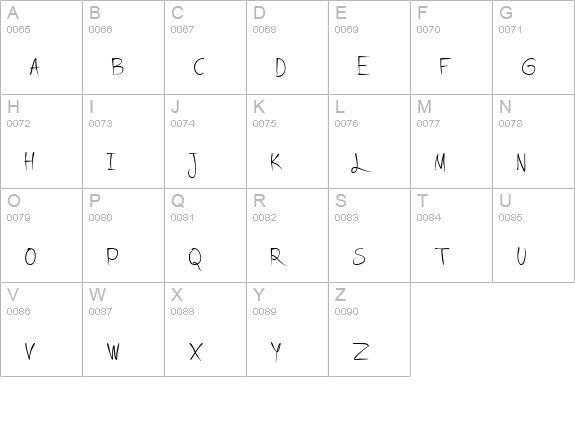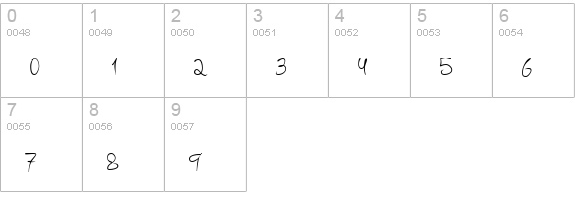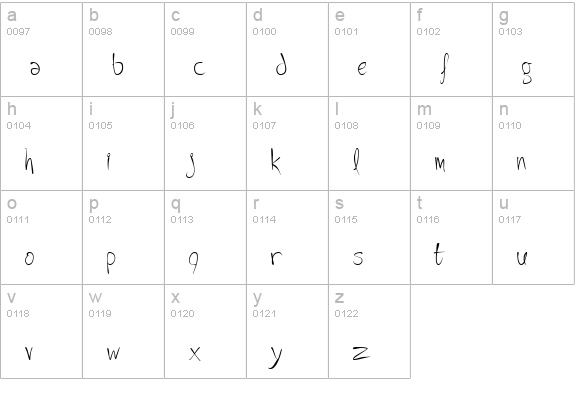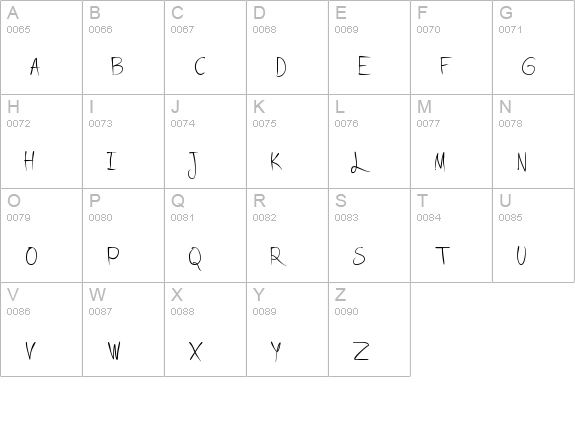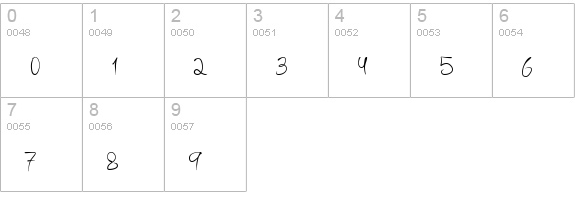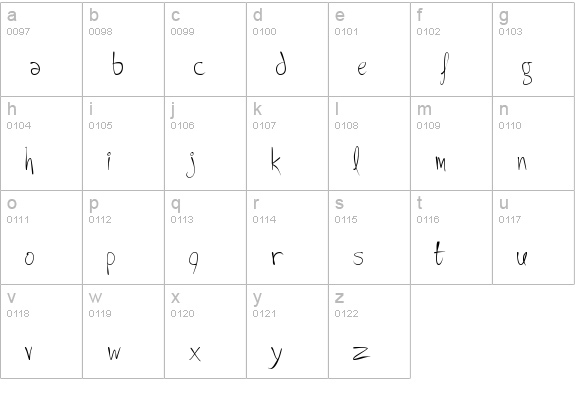
Lovitz Font Details
Lovitz font is a stunning and elegant typeface that exudes sophistication and charm. With its sleek lines and delicate curves, this font is perfect for adding a touch of luxury to any design project. Whether you're working on invitations, branding materials, or social media graphics, Lovitz font will elevate your work to the next level. The best part? Lovitz font is completely free to download at FontsMarket.com. Don't miss out on this opportunity to enhance your designs with this exquisite font that is sure to impress. Download Lovitz font today and let your creativity shine!